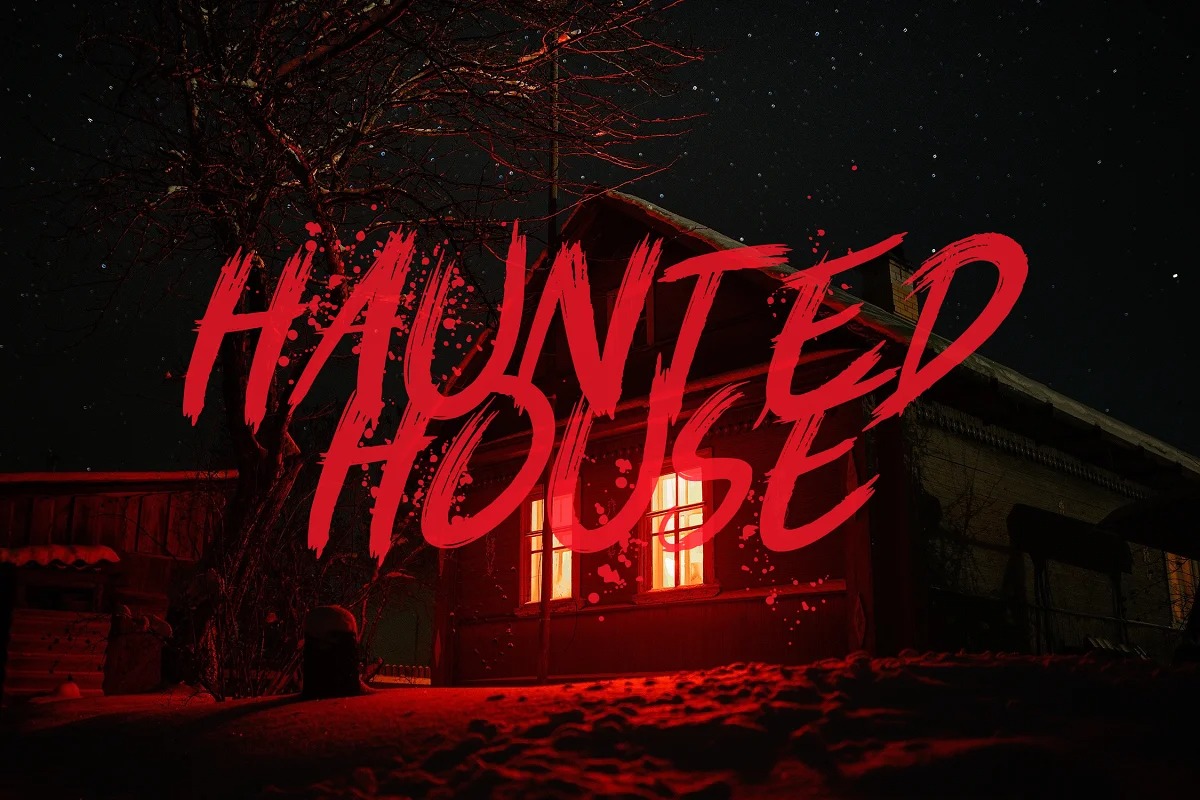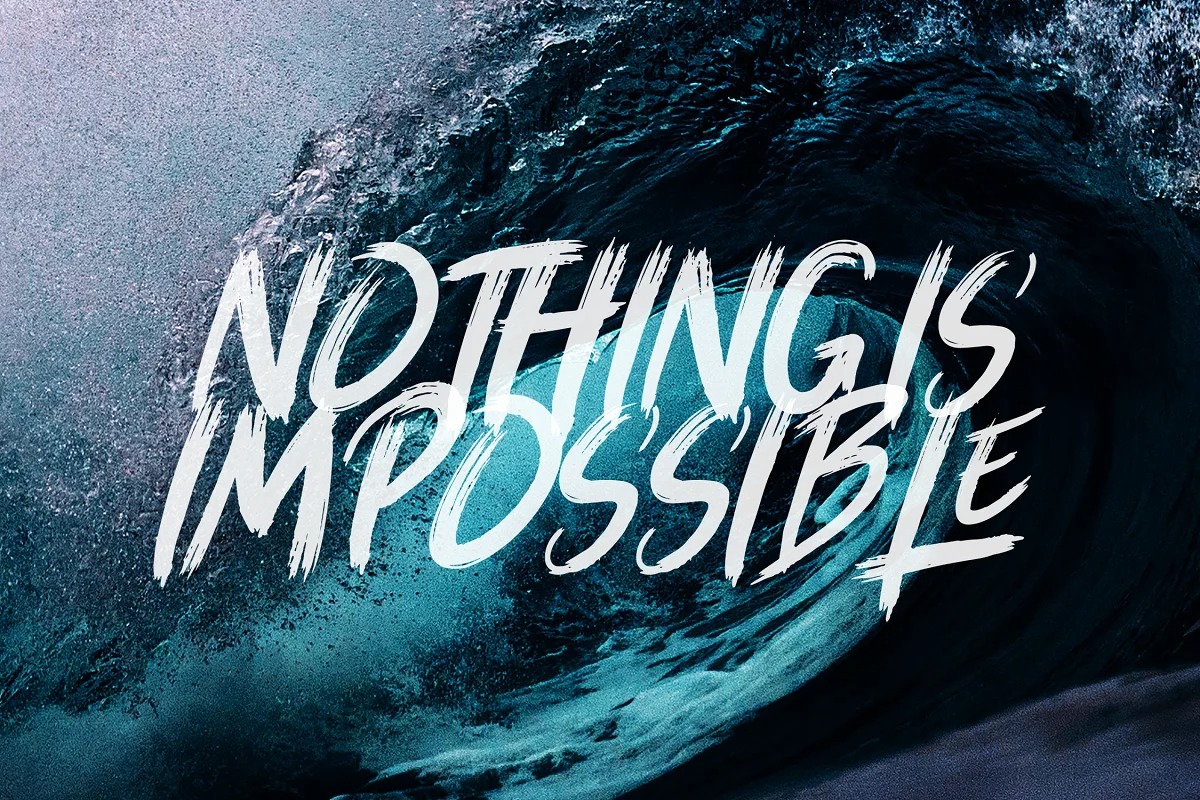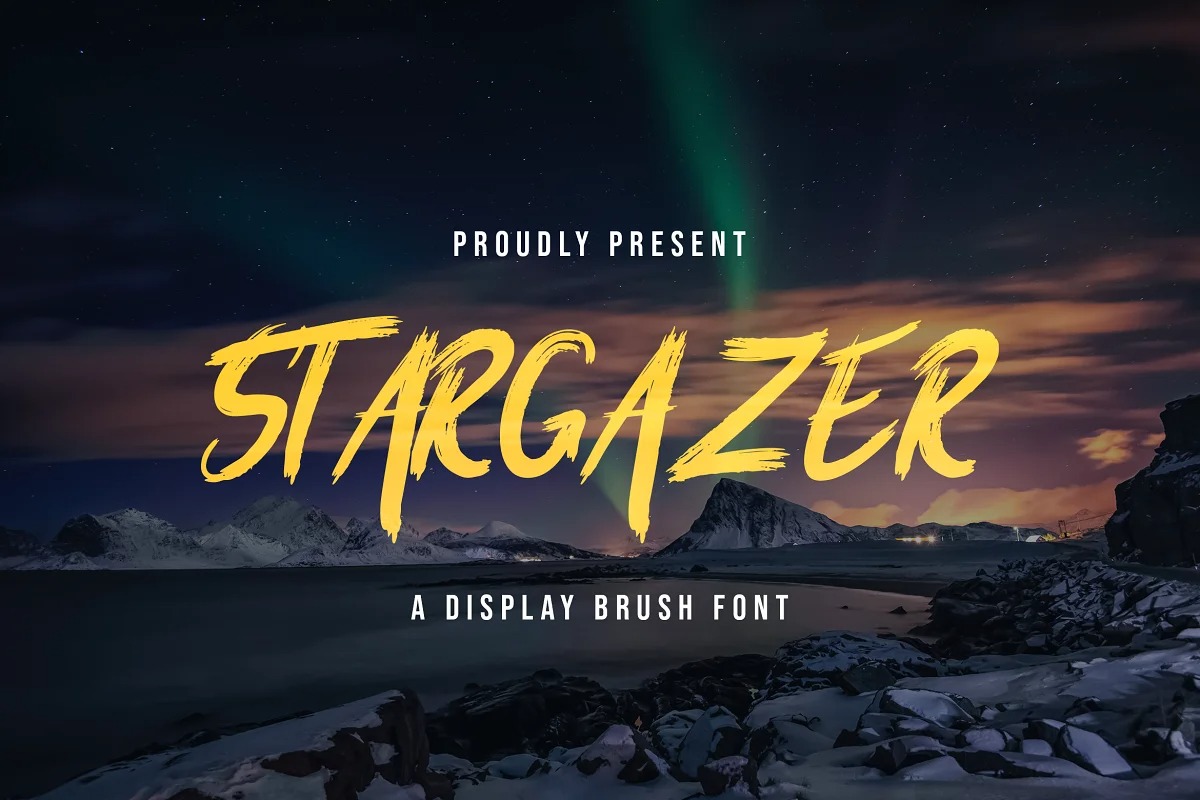
Stargaze Brush Font
It’s a radical script typeface that comes with Extended Latin Characters. You can hit out your creativity with this font more easily. It’s a creative brush font has many purpose and suitable for graffiti, urban street, workouts, gym items, classic modern, logotype, advertising and much more.